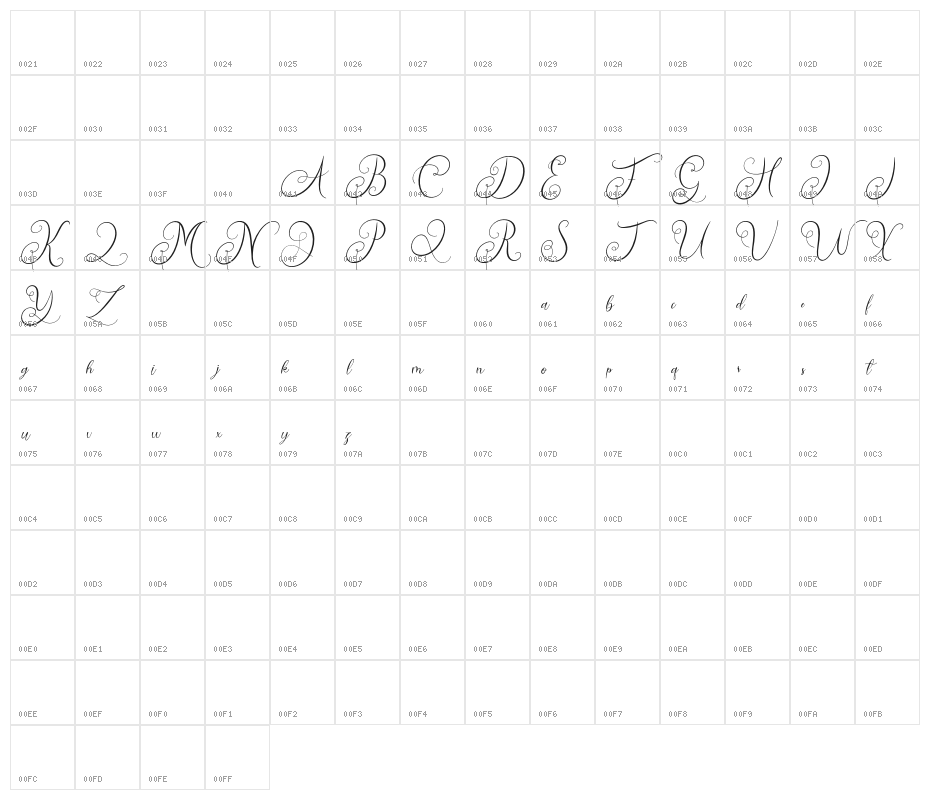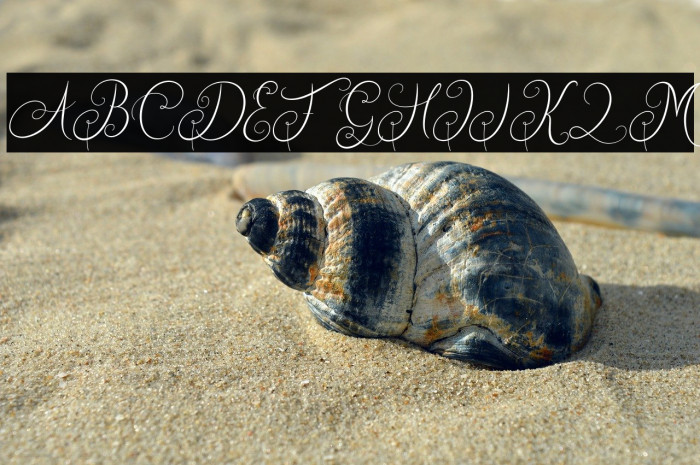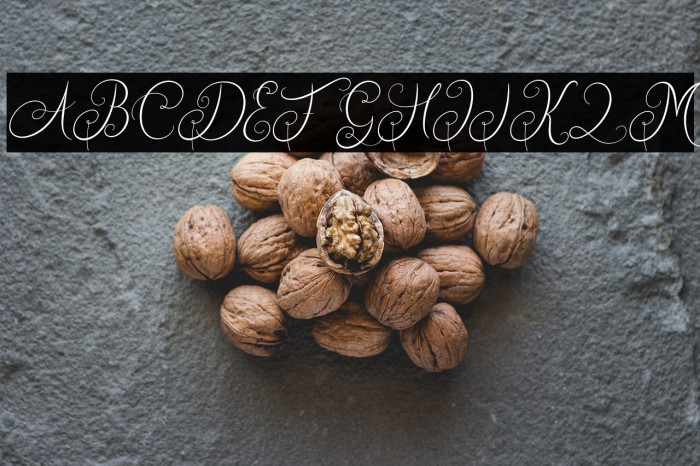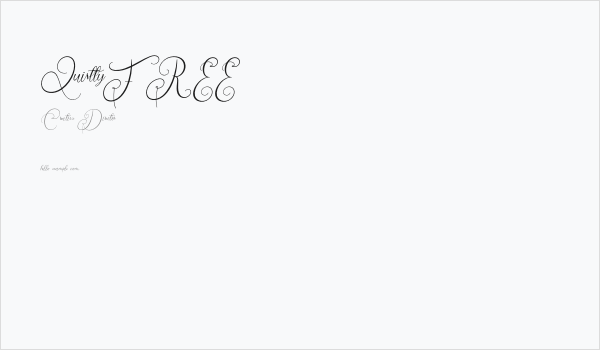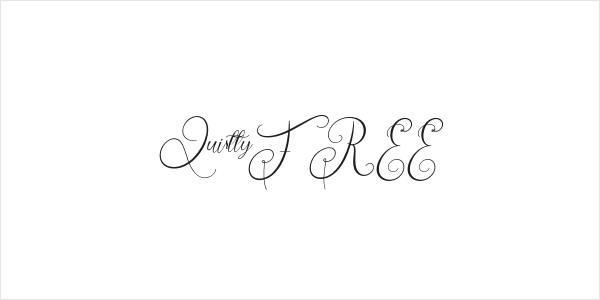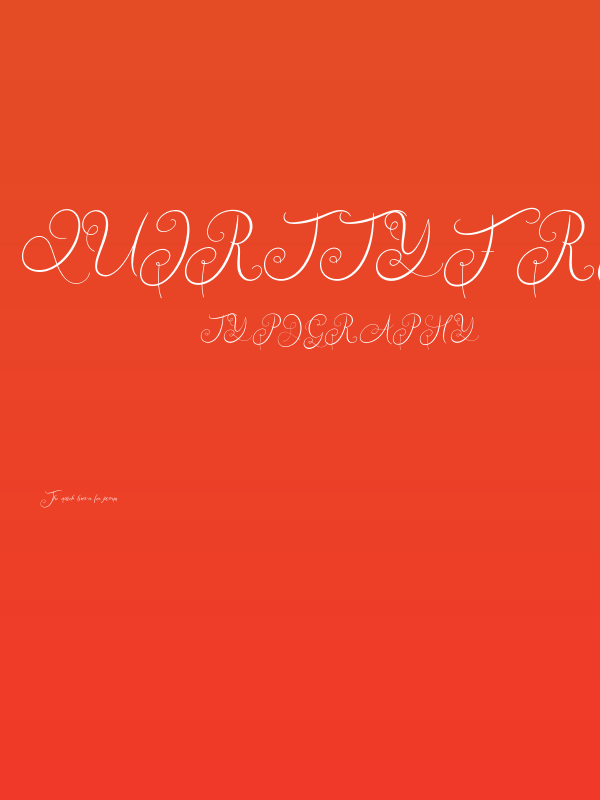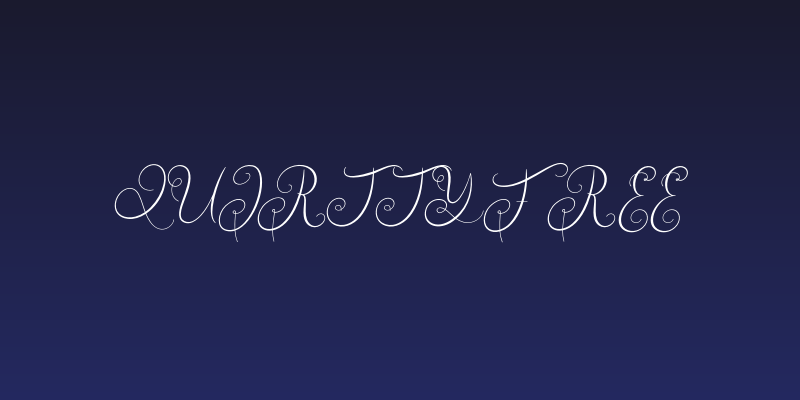
QuirttyFREE Font
QuirttyFREE Description
This font features an elegant and sophisticated script style, characterized by its flowing and interconnected letterforms. The uppercase letters are adorned with intricate swirls and loops, giving them a decorative and ornate appearance. The lowercase letters maintain a smooth and fluid connection, enhancing the overall graceful aesthetic. The font's design exudes a sense of refinement and artistic flair, making it suitable for projects that require a touch of elegance and sophistication. Its delicate strokes and elaborate details make it ideal for formal invitations, branding, and other creative applications where a luxurious and stylish look is desired.
| Proposed Projects | Ideal for wedding invitations, luxury branding, elegant stationery, and artistic projects. |